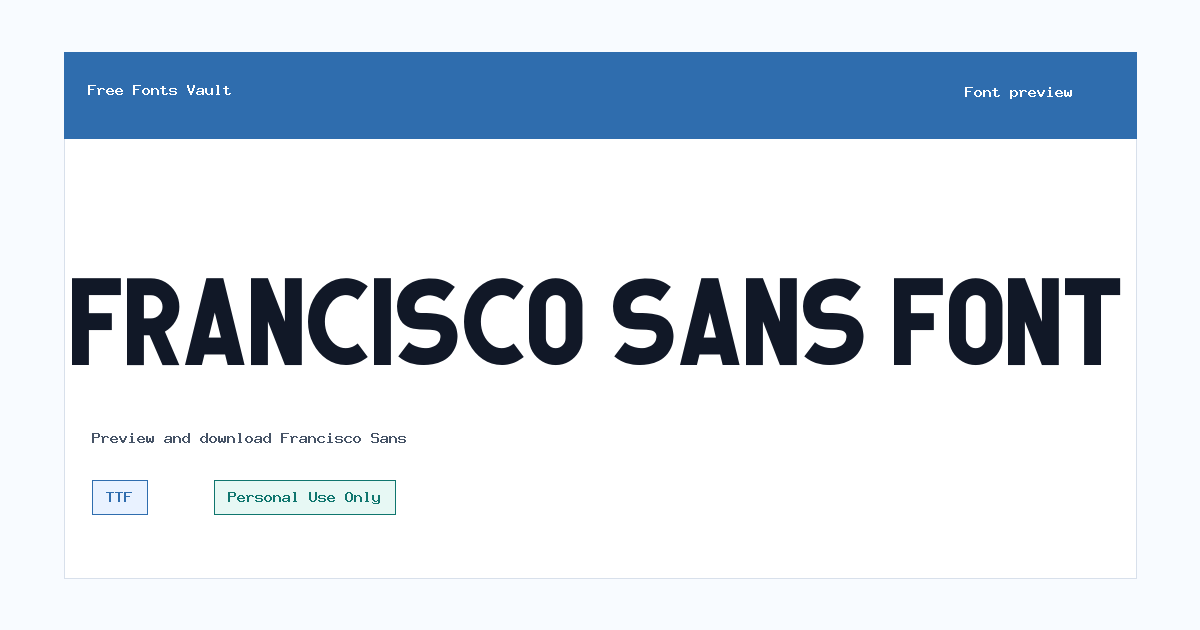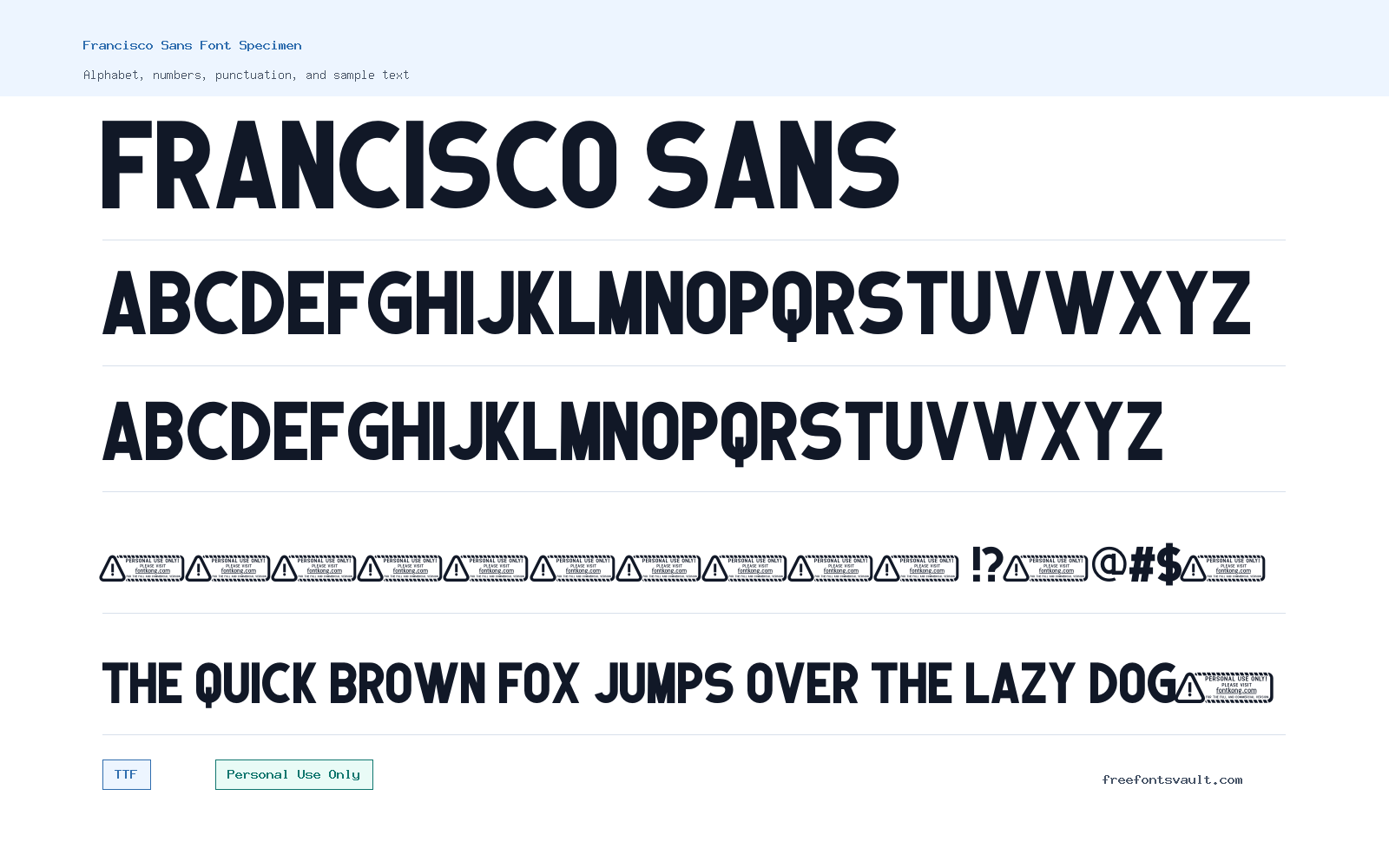
Francisco Sans
Francisco Sans is a clean sans serif font from Kong Font with a regular TTF style for personal design projects. It is best approached as a simple display and branding typeface: useful for testing short headlines, logo concepts, poster titles, social graphics, and web mockups where a clear modern look is needed.
About Francisco Sans
Francisco Sans has the practical feel of a straightforward sans serif: plain enough to read quickly, but shaped for projects that need a designed title rather than a default system font. Because the downloadable style is a regular weight, it works best when the layout gives it room to stand on its own. Try it in medium to large sizes for names, short headings, labels, packaging-style mockups, portfolio graphics, and presentation covers. It may also suit logo drafts where you want a clean wordmark base before adding spacing, icon marks, or custom lettering details.
For visitors testing the font preview, start with the exact words you plan to use. A sans serif can look balanced in one phrase and cramped in another, especially in all caps, long names, or tight poster layouts. Check uppercase letters, numbers, punctuation, and any accented characters you need before downloading. Since the available file is a TTF regular style, it is easy to test in common design apps, but it does not provide a full multi-weight family for building complex typography systems. If you need hierarchy, pair Francisco Sans with a contrasting serif for body text, or use a neutral sans for paragraphs while keeping Francisco Sans for the main title. Avoid using it for long reading sections until you have checked spacing and legibility at small sizes.
Francisco Sans can be useful in early logo work because its clean structure gives you a direct starting point. Use it to explore brand names, poster headlines, YouTube thumbnail titles, menu headers, stationery mockups, or website hero text. If the design feels too plain, adjust tracking, letter spacing, case, and layout before looking for another font. A little extra spacing can make a simple sans feel more premium in a wordmark, while tighter spacing can make poster titles feel stronger. For web mockups, test it as an image or prototype asset first and confirm the license before using it on a live client site or commercial project.
• Clean sans serif appearance that works best for short display text, headings, branding drafts, and poster-style layouts
• Single regular style, so designers should create hierarchy through size, spacing, color, and pairing rather than relying on multiple weights
• Logo drafts and wordmark exploration
• Poster titles and event graphics
• Website hero headings and landing page mockups
• Social media graphics and thumbnail text
• Packaging concepts, labels, and presentation covers
• Personal projects, mood boards, and typography experiments
Use Francisco Sans where short text needs a clean sans serif look. Test your actual words in the preview before downloading, especially if you plan to use all caps, tight spacing, numbers, or punctuation. For stronger layouts, pair it with a readable body font and let Francisco Sans handle the title or brand-style text.
What style of font is Francisco Sans?
Francisco Sans is a sans serif font. It is best suited to short display text such as headings, logo concepts, posters, and mockups.
What should I pair with Francisco Sans?
For longer text, pair it with a highly readable body font. A simple serif can add contrast, while a neutral sans serif can keep the whole design minimal.